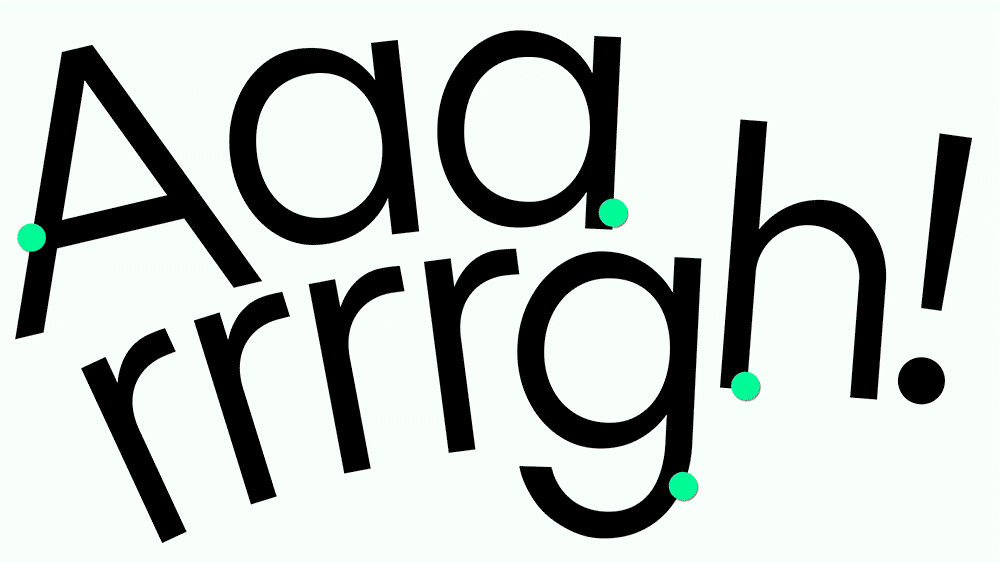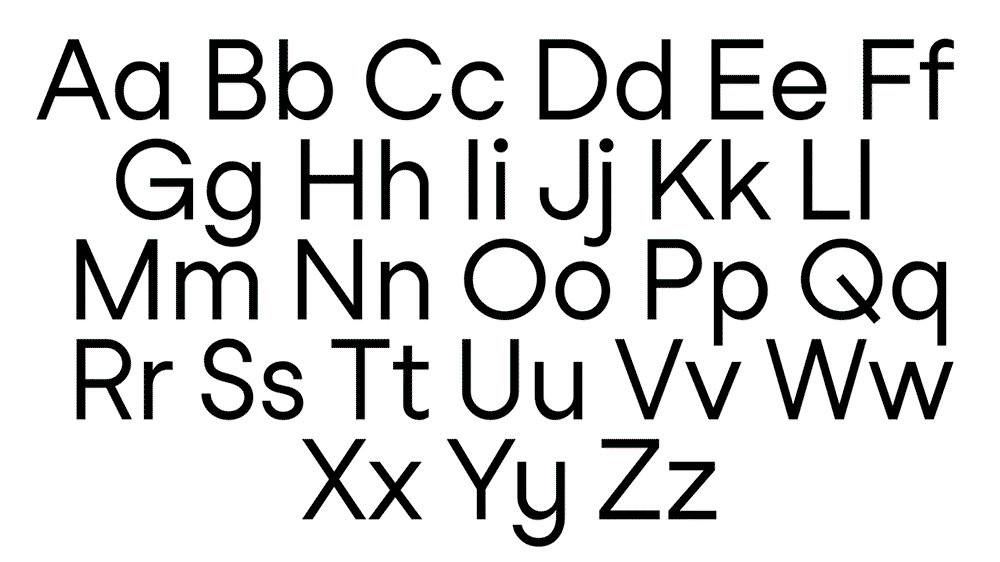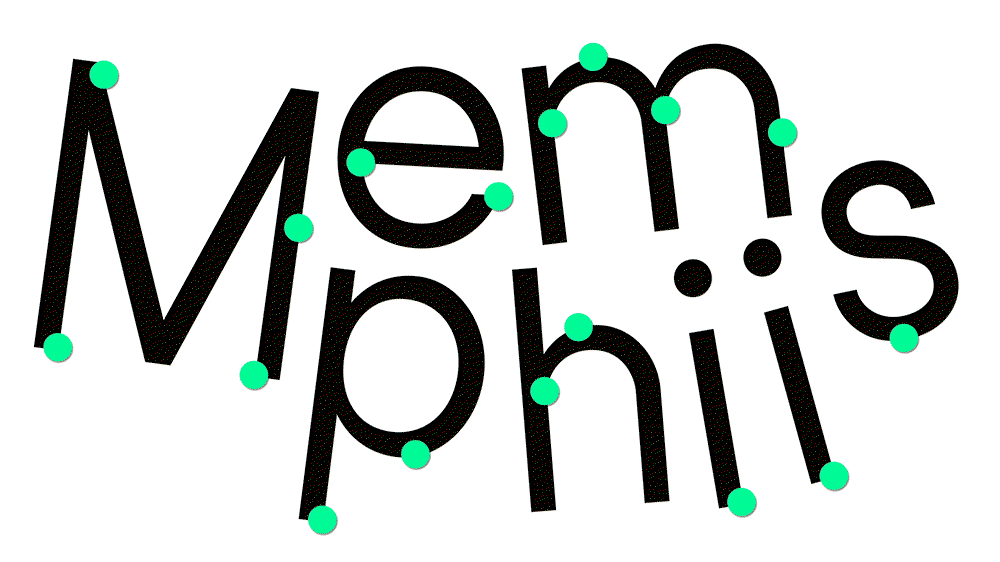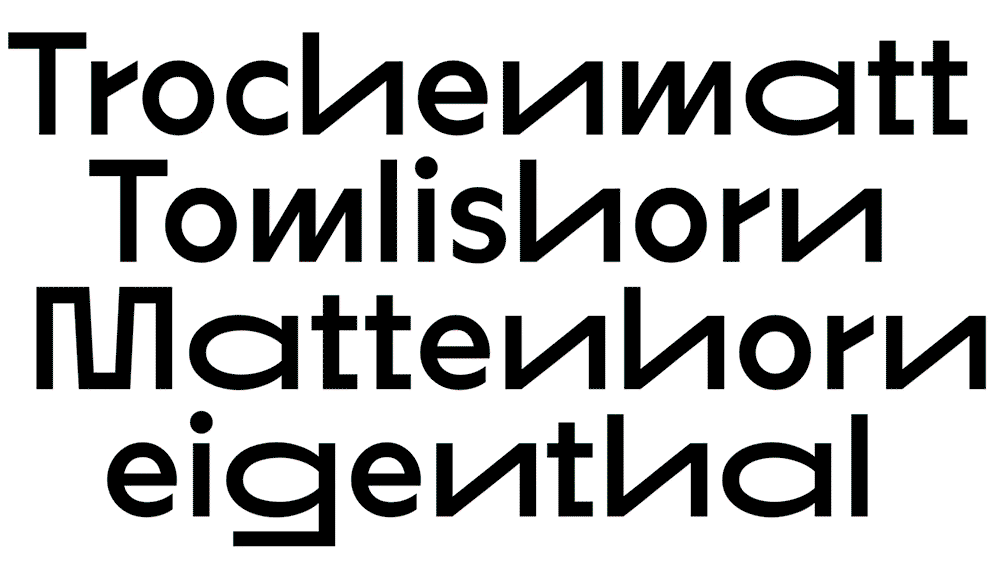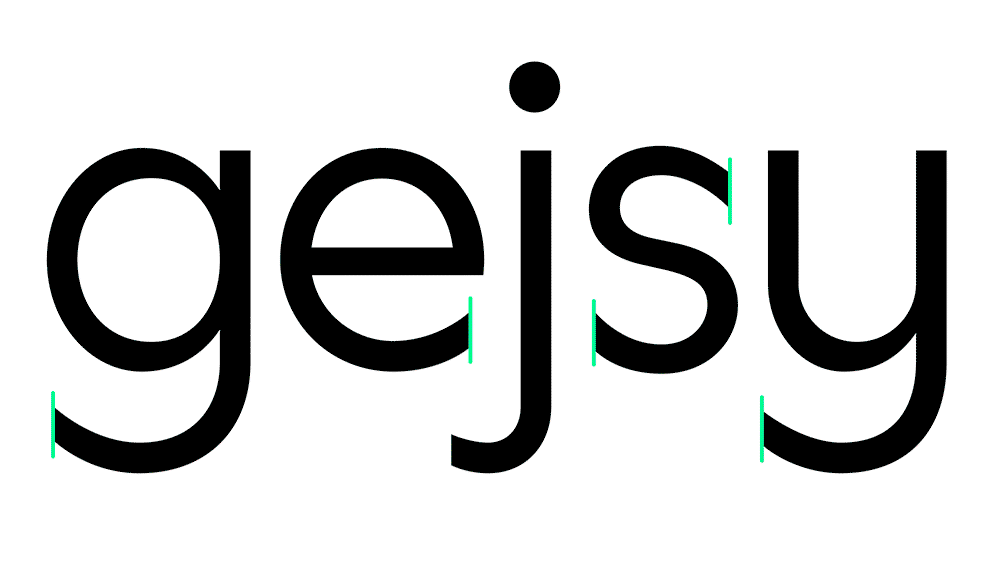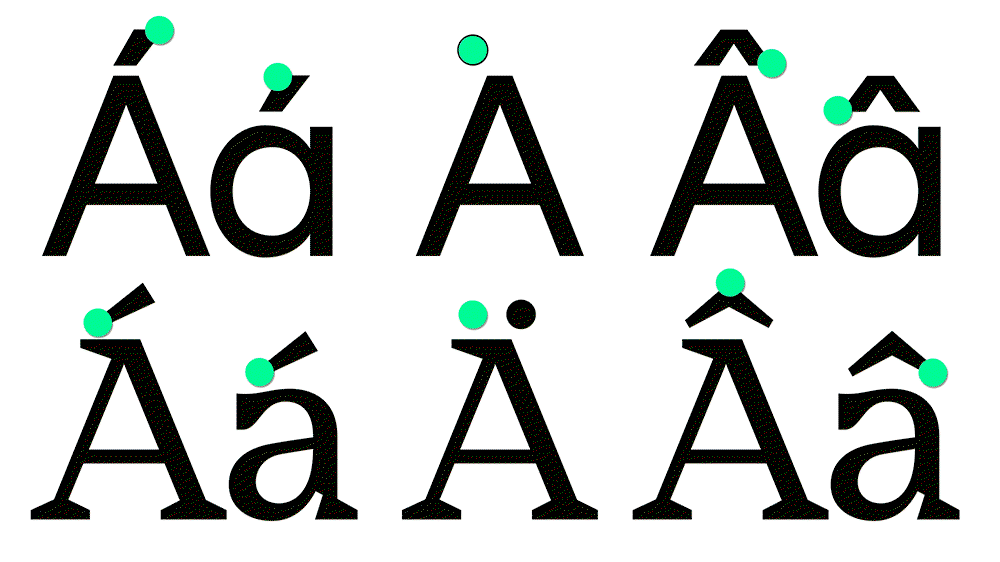
Studio Feixen finally launches its very own “superfamily” of fonts
After years of wowing the graphic design community with its work, Studio Feixen is now releasing its own font family.
Back when it launched four years ago, Studio Feixen – the now-revered design studio based in Lucerne, Switzerland – designed a font for all its studio communications. Titled Studio Feixen Sans Black, and described by the studio’s Felix Pfäffli as “simple and geometric” but with “a friendly and slightly naive feeling”, it was built as a typographic way to visualise the studio’s output. But, and this is the case for pretty much everything the studio put out, the font became highly admired by designers, who often reached out hoping to purchase it. It was an opportunity the studio never offered – until recently. Studio Feixen Fonts is here!
Described by the studio as a “so-called typeface superfamily”, Studio Feixen Fonts is a typeface available in brilliantly considered, variant ways. “Simply put,” says Felix, it’s “a font that has a lot of cuts and can change its character within the family.” This family is made up of several different-sized components, offering designers both a sans and serif, as well as what the studio describes as a writer which “looks like a monospace font”, a display cut called edgy, and, “for fun, two additional variable cuts too, which allows you to play with the width of the font.”
When it came to the font’s aesthetics, the studio kept its own tastes and needs front of mind. “The main idea behind this font was, on the one hand, we had to define our own language,” Felix explains. “At the same time, we had this idea of a family that simplifies our design process.”
So, the myriad options answer many questions a designer might have when choosing a typeface. “Should it be simple in one cut? Sans? Or Serif?” Felix asks. “These questions are easy to check within this system.” Its look and feel mirror this sense of simplicity too, with the designer describing the font superfamily as having “a contemporary feeling, without being over-designed and loud,” he says. “Our designs are already asking for a lot of attention... We needed a font which is able to accompany our designs without competing with them, and without being boring. We needed a font that looks clean and friendly. As if it already existed.”
The Studio Feixen Superfamily: Sans Variable
Creating a font from scratch is no easy task, however, and Felix and his team had to constantly make decisions about each and every detail. For instance, an initial decision was that the font should follow “very strict and simple rules,” he tells us. “The stem width, for example, is always the same except for the rare moments when it would be ugly to follow the rule.” This example also reflects Studio Feixen’s ethos as a whole: “That’s one of the core principals of our studio. Make strong rules but don’t follow them blindly. We are designers and if we see something that looks weird, we have to react and find a solution.”
Font fanatics will notice this flair in the tiny details too, such as “some humour in the tails” of the small “y” or “g”, in comparison to its uppercase sibling which is more geometric. Or, even the difference in styles between its writer and edgy cut. The first is a font which, although appearing like a monospace, “is less mathematical when it comes to the letter spacing.” Felix points out: “We like to have this option in our designs for the moments when you want something to look well organised and slightly old fashioned.”
On the other hand, the edgy edition displays an opposite approach, purposefully “special, awkward and contemporary without losing its roots”, he says. “To find the right language here, we made about ten contemporary different fonts with different approaches, just to find the right temperature. It includes several surprising letters and it’s designed to be used BIG.” Now available for the design community to utilise, Felix says Studio Feixen has no expectations for how their work may be used. “But I’m really looking forward to seeing what people do with it,” he says. “I really hope people will send us their work.”
In being so purposefully versatile, the possibilities of how others, or even the studio itself, may use the font are endless. “Of course, I have my own ideas of how you can use this font family. And I know that the font has a lot of interesting sides and can be used in various ways. I see it animated. I see a magazine being super playful and surprising without changing the font family. I see posters or opening pages in a magazine using the edgy cut, or the serif in uppercase. But I also see the font simply accompanying bold design without distracting from it.” Finally, Felix concludes: “The stuff I dream of is to be surprised by the ideas of other people on how this font could be used.”
Sans Edgy
Sans Edgy Variable
Sans Variable